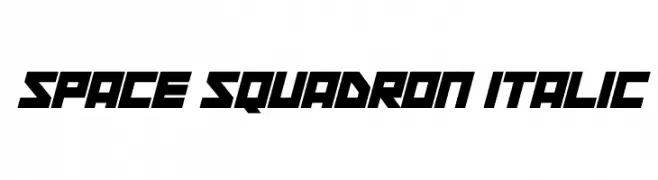
A bold, modern sans-serif font with geometric shapes and consistent stroke width.
A modern, bold, and italic sans-serif font with consistent stroke thickness.
A modern, italic sans-serif font with medium weight and balanced design.